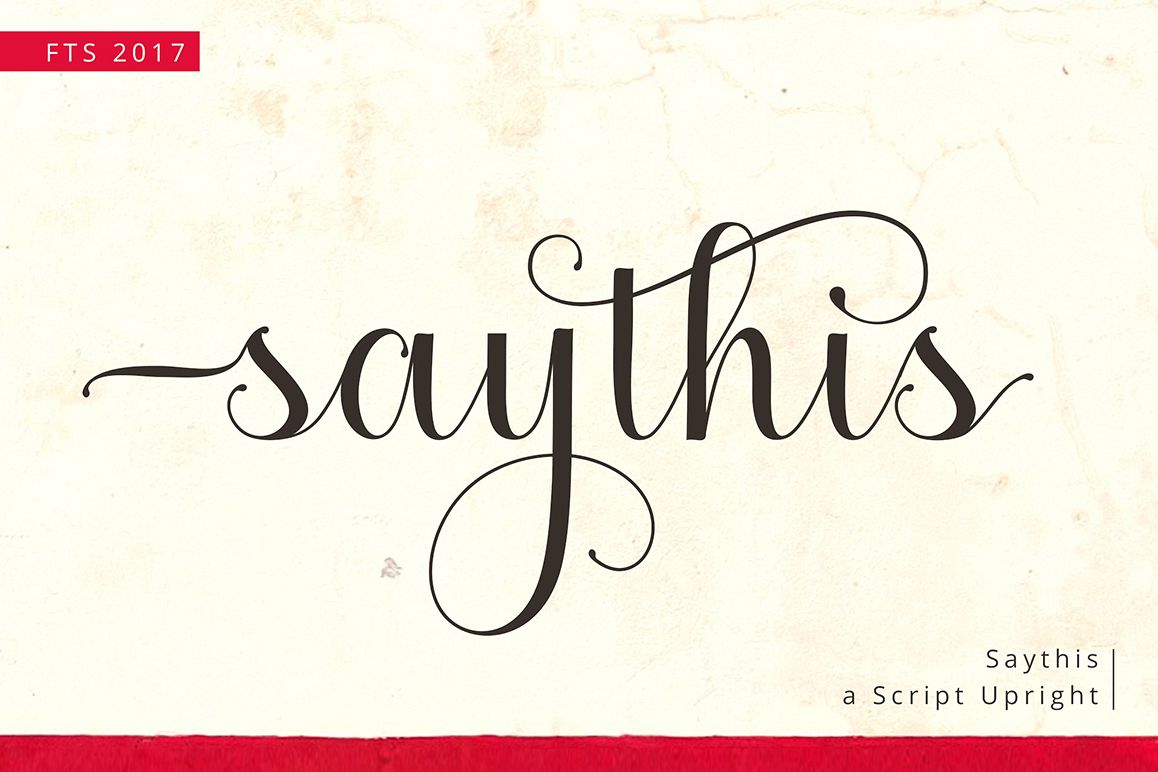
Saythis Script Upright
Saythis Script Upright is our latest product that need so much effort to create it. We research and do the best to make this font good for you. This is very suitable for beautiful logo, poster, magazine, photography and any other design project.
Saythis Script Upright goes with Romantic and Elegant Upright Calligraphy, ready to give your design project with Fresh and Feminine Style. This font have an 264 Standard Glyph + 503 Glyph Alternate in Open Type Standard Format.Fonts Overview :
• Saythis Script Upright (.ttf and .otf) have 767 glyphs, comes with Upper and Lowercase Standard Characters, Punctuation, Numerals. And other Glyphs variation of the OpenType features such as Standard Ligature, Titling Alternates, Stylistic Alternate and 8 Stylistic Set (ss01 - ss08).
• Includes a large range of Multilingual Characters.